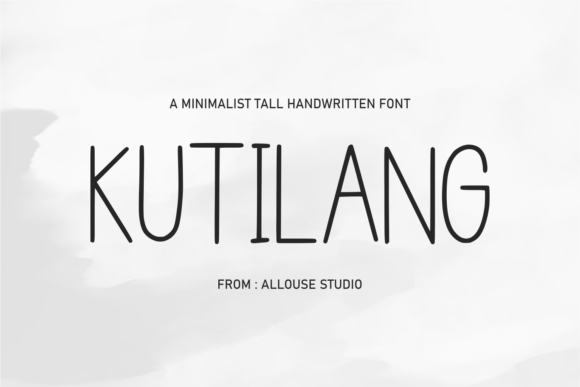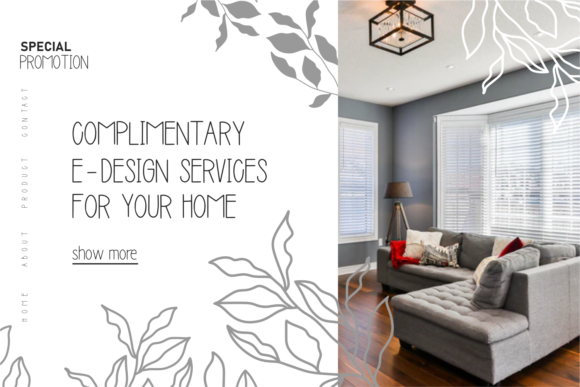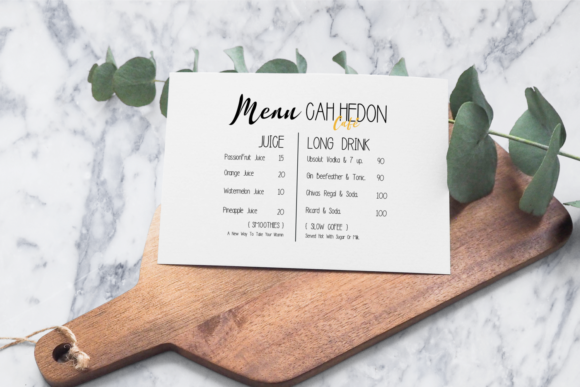
Kutilang Font
Kutilang is a minimalist, tall and thin sans serif font. It can easily be matched to an incredibly large set of projects, so add it to your creative ideas and notice how it makes them stand out!